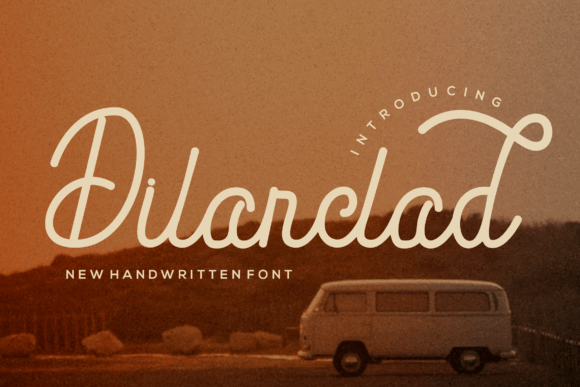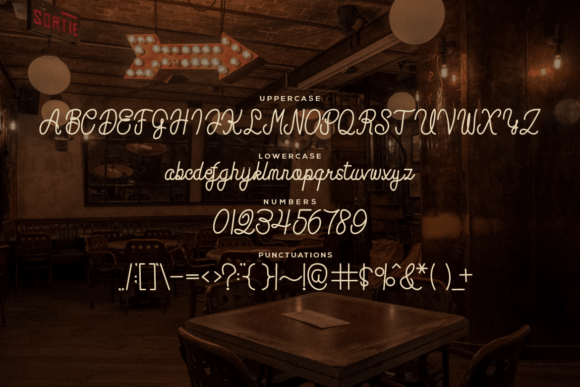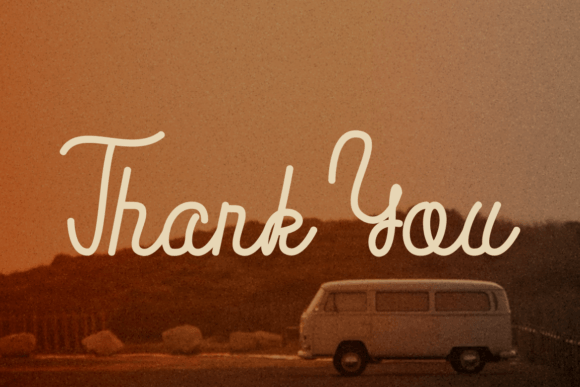
About Dilanclad Font
The Dilanclad Font Download brings timeless charm and modern elegance together in a beautifully handwritten script. This font was crafted to add a natural flow and stylish appeal to every design. Whether you’re designing for weddings, personal projects, or professional branding, Dilanclad ensures that your work stands out with sophistication and grace.
Its balanced strokes and smooth curves provide a classic handwritten look without sacrificing readability. Designers who want a typeface that feels both personal and polished will appreciate how versatile this font can be. With its elegant rhythm, Dilanclad adapts seamlessly to both minimalistic and detailed projects.
Features of Dilanclad Font
The Dilanclad Font Download offers several professional features that make it a favorite among creatives:
Elegant handwritten script style with refined details
Balanced strokes that maintain legibility across all sizes
Timeless look perfect for classic or modern projects
Versatility for print, digital, and branding needs
Best Uses for Dilanclad Font
This handwritten script is ideal for projects that require a touch of elegance. Some of the most common uses of the Dilanclad Font Download include:
Wedding invitations & stationery – Add romance and class to invitations, menus, and place cards
Thank you cards & greeting cards – Create personal messages with a handwritten feel
Logos & branding – Build a memorable identity with stylish script typography
Business cards & professional materials – Leave a refined impression with elegant text
Quotes & posters – Highlight meaningful words with sophistication
Social media content – Design posts and stories with a luxurious aesthetic
Why Choose Dilanclad Font
What makes the Dilanclad Font Download unique is its ability to balance elegance with usability. Many handwritten fonts lean too heavily toward decoration, making them hard to read in longer texts. Dilanclad, however, offers clarity alongside style. This makes it a reliable choice for professionals who need both beauty and function in their designs.
By adding Dilanclad to your font collection, you gain a tool that can elevate any project. Whether you’re preparing branding assets for a client or designing heartfelt invitations, this font delivers sophistication without overwhelming the design.
The Dilanclad Font Download is a refined handwritten script that enhances creative projects with charm and elegance. From personal stationery to professional branding, its graceful curves and balanced details make it a versatile design companion.